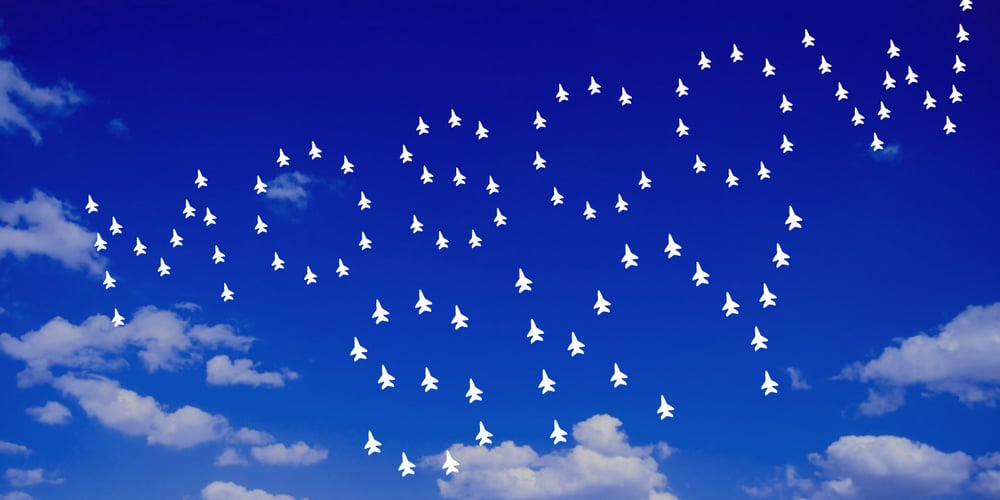
ALS Pobeda Font Family was designed by Julia Sysmäläinen and published by Art. Lebedev Studio. ALS Pobeda contains 1 styles and family package options. Pobeda is a bright jobbing typeface inspired by the Moscow Victory Day Parade commemorating the 70th anniversary of the end of the Second World War. At the heart of the typeface is the recognizable rapid silhouette of the famous MiG-29. This cool typeface looks great on souvenir objects, in print and on the web, adding some technical flair to any material.